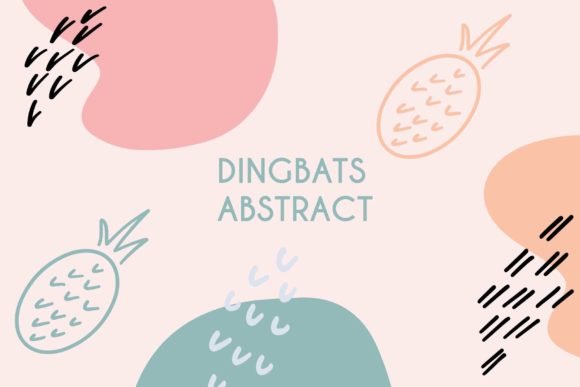
The Power of Visual Storytelling with Abstract Dingbats Font
You’ve just received a burst of creative inspiration – a sudden urge to craft the perfect handmade card or design a stunning visual presentation. As you start brainstorming ideas, you know that the right font can make all the difference in bringing your vision to life. This is where the Abstract Dingbats Font comes in – a versatile and creative tool that’s perfect for digital designers, crafters, and anyone looking to add a touch of personality to their projects.
With its unique and playful style, the Abstract Dingbats Font is an invaluable asset for designers and creatives. Whether you’re working on a digital design, a presentation, or a handmade craft, this font’s abstract shapes and lines can add a level of sophistication and whimsy that’s hard to find elsewhere.
Abstract Dingbats Font Key Features
- Font Type: Dingbats font, ideal for decorative and illustrative purposes.
- Font Size: Offers a range of font sizes, from 8pt to 48pt, allowing for flexibility in design applications.
- Resolution: Designed for high-resolution printing and display, suitable for use in both print and digital media.
- Unique Characteristics: Features a unique abstract style with intricate details and patterns, adding a touch of sophistication to designs.
Review of Abstract Dingbats Font
Overall, I found the Abstract Dingbats Font to be an intriguing addition to any design project. ✨ The font’s unique blend of abstract shapes and dingbat-inspired elements adds a touch of whimsy and playfulness that can be hard to find in more traditional fonts.
Some of the standout features of the Abstract Dingbats Font include:
- ✨ Highly customizable: The font offers a wide range of style and size options, making it easy to tailor to specific design needs.
- ✨ Versatile: The Abstract Dingbats Font can be used in a variety of contexts, from children’s books to advertising and beyond.
- ✨ Unique: The font’s abstract nature makes it stand out from more conventional fonts, adding a touch of personality to any design.
- ⚠️ Limited legibility: At small sizes, the font’s abstract elements can become difficult to read, making it less suitable for body text.
- ⚠️ Limited compatibility: Some users have reported issues with the font’s compatibility across different operating systems and software.
Overall, I would recommend the Abstract Dingbats Font to designers looking to add a touch of personality and whimsy to their projects. While it may have some limitations, its unique features and versatility make it a valuable addition to any design toolkit.
The Abstract Dingbats Font is ideal for creative projects that require a unique and eye-catching typography style, such as:
Infographics, posters, and social media graphics
Invitations, cards, and other paper crafts
Logos and branding materials
Designs that require a playful and whimsical touch